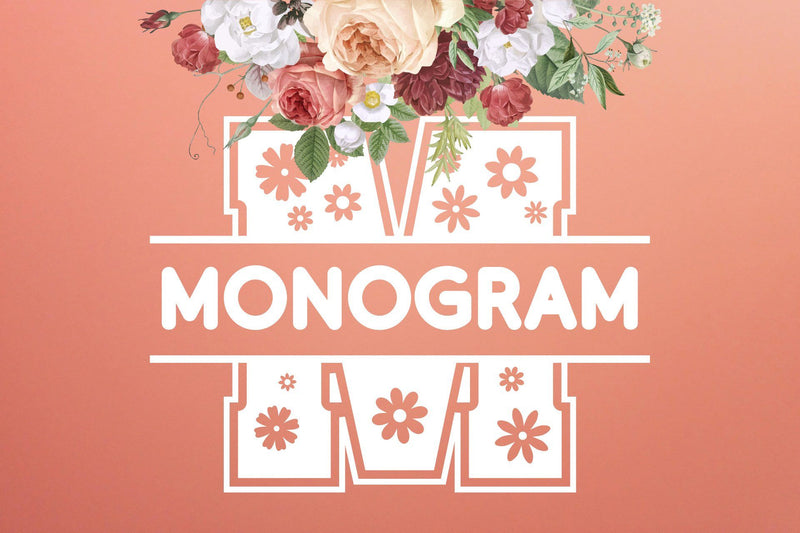
Flowers Split Monogram Font
Flowers Monogram is a sweet decorative font, featuring lovely flower ornaments. Fall in love with its authentic feel and use it to create gorgeous wedding invitations, beautiful stationary art, eye-catching social media posts, and cute greeting cards.